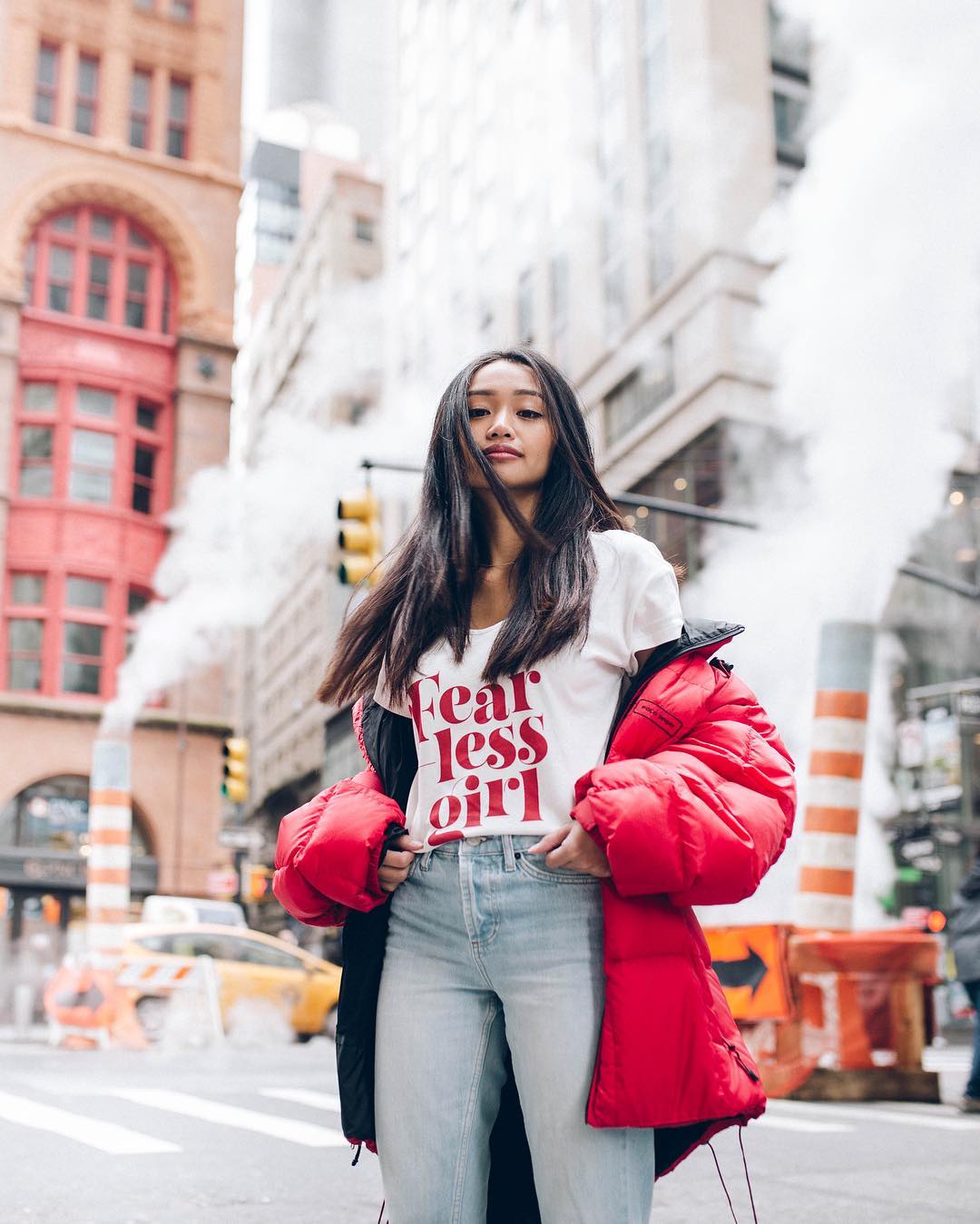
Wordmark for Skylar Yoo’s Graphic Tees
Alice Yoo, the person behind the online store Skylar Yoo approached Laura with the offer to collaborate with a lettering piece. In this first collection, they asked hand letterers around the world to bring to life inspiring and empowering messages for women. They took those messages and created statement t-shirts, art prints, and accessories that women can proudly display on themselves or inside their homes.
The inspiration for this first collection came from witnessing a historical day, January 21, 2017. In the single largest protest march in human history, women and men came together to ask for governmental change. The Women’s March brought out five million people in 700 marches worldwide to advocate for women’s rights. Skylar Yoo was born to encourage women to be bold. It’s for the woman who aspires to shatter the glass ceiling, the ones who want to defy the odds.
Laura’s approach to the design was to balance the message with the letter shapes, creating something attractive but also strong, the shapes are based on bold modern typefaces, a standard for fashion, but stencil, that gives a fresh touch. The size and the color of the letters in the T-shirt are calling your attention, while the way they are placed gives some vigor and irreverence.